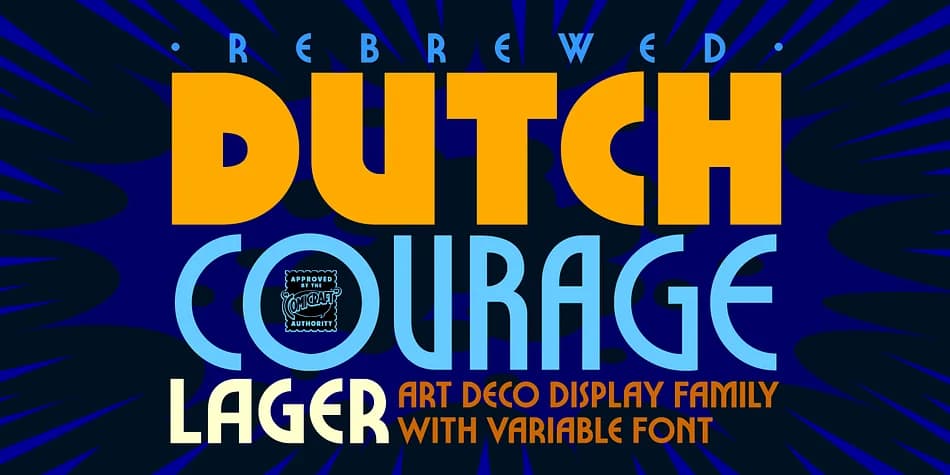
Picture yourself designing a retro concert poster or crafting packaging that demands instant visual impact. Dutch Courage Lager by Comicraft brings exactly that kind of authority to your work. This decorative typeface channels groovy 1970s sensibility alongside clean Art Deco geometry, delivering streamlined forms and optimistic letter shapes that feel both vintage and deliberately considered rather than borrowed from a nostalgia bin.
The bold geometric styling works across specific projects you'll encounter: craft beer labels and bottle designs (fitting, given the font's name), vintage album cover artwork, art deco wedding invitation suites, and speakeasy-style bar menus. Each letter carries confident geometric punch, so straightforward text reads like it belongs in a classic comic book or mid-century brand campaign. You get genuine personality without any overthinking or excessive apology.
Dutch Courage Lager offers flexibility where designers actually need it. The typeface spans multiple weights from Pale all the way to Schwarz, with a variable font option that lets you land on any weight in between. Four stylistic alternates are built into each family, giving you room to adjust tone and character without managing separate files for different moods. Grab it from Creative Fabrica and start bringing that distinctive retro energy to your designs.
Dutch Courage Lager Font is a decorative font that shines as a display or heading face. Pair it with a clean sans-serif or serif font for body text β the contrast creates a clear hierarchy while the two styles stay balanced and easy to read.